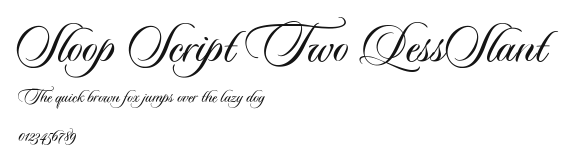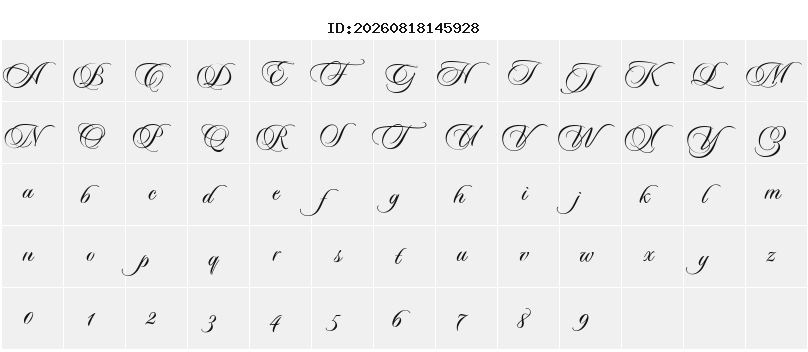
• Font Name: Sloop Script Two LessSlant
• Full Font Name: Sloop Script Two LessSlant
• PostScript Name: SloopScriptTwoLessSlant
• Copyright: ©1994, Richard Lipton, designer. Produced by The Font Bureau, Inc.
• Description: Because Ela was asking if there was also an less slanted modification of Sloop ScriptTwo